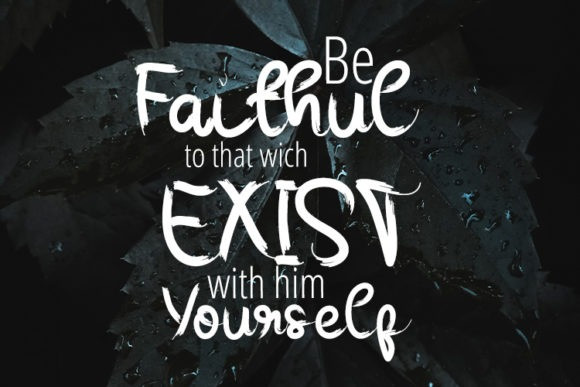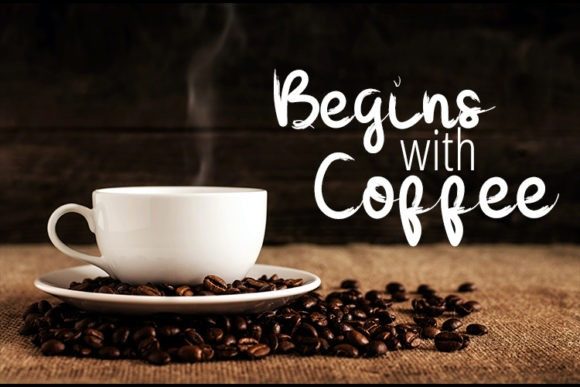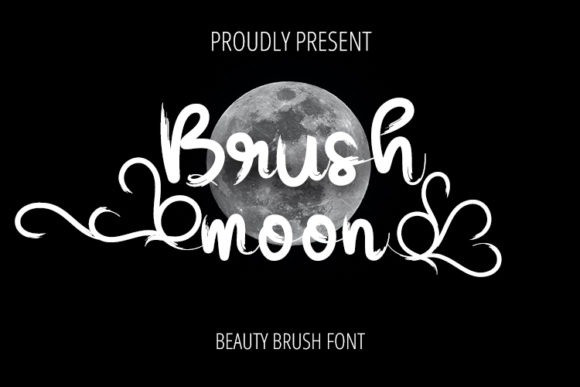
Brushmoon Font
Brush Moon Brush Font is a beautiful, thick lettered and flowing handwritten font. Fall in love with its incredibly versatile style and use it to create spectacular designs!